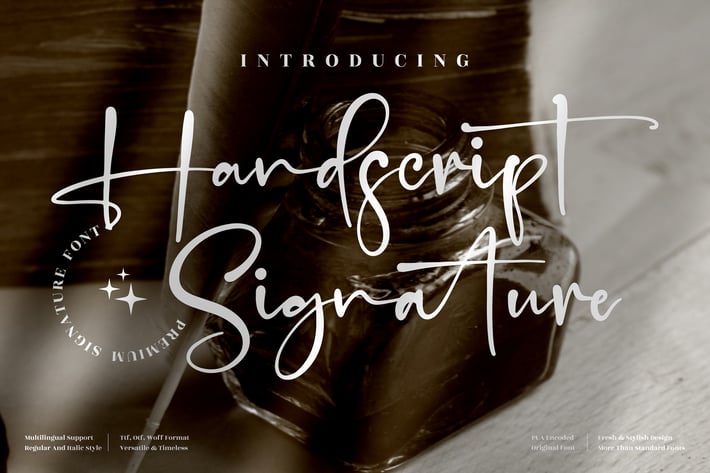
Handscript Signature Font
Handscript Signature Font is a modern handwritten typeface designed to elevate your visual projects with a premium and expressive touch. Its elegant strokes make it ideal for branding, posters, social media graphics, invitations, and various creative works requiring a stylish handwritten feel.
Stylish handwritten signature style
Smooth curves & expressive ligatures
Perfect for branding, posters, and social media
Regular & italic styles
Branding
Social media posts
Invitations
Posters
Quotes
Business cards
Packaging
Creative projects
Give your visuals a classy handwritten touch with this modern signature font.